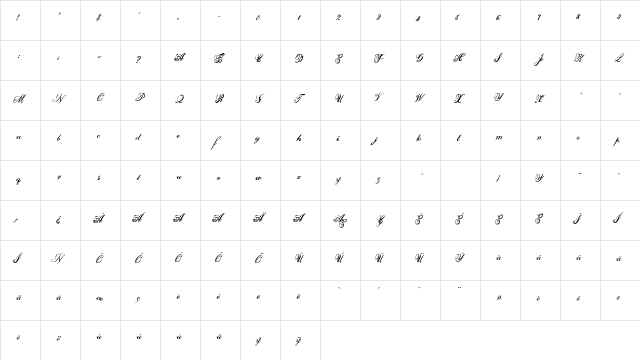
FauxAntique Regular
| Foundry | Xerographer Fonts |
| Designer | Xerographer Fonts Max Infeld |
Design Context for FauxAntique Typeface
FauxAntique has the warm character of retro typography — evoking diners, record sleeves, and the golden age of print advertising.
Font Pairing: Combine FauxAntique with a simple slab or neutral sans — period-accurate companions reinforce the vintage feel without competing for attention.
Pro Tip: Use FauxAntique for headlines and pull quotes rather than body copy — its personality is best appreciated in short, focused bursts.